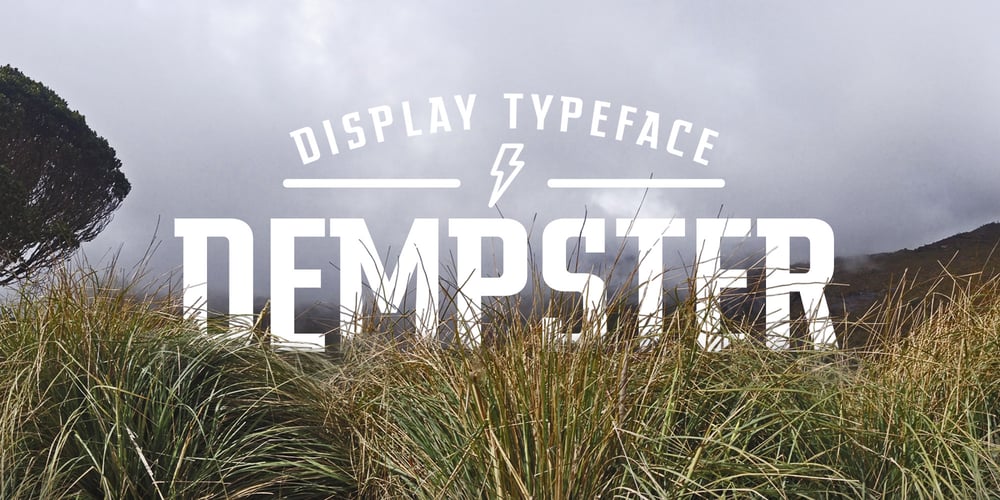
Dempster Font Family was designed by Steve Matteson, Jim Ford and published by Ascender. Dempster contains 1 styles and family package options. Dempster is a geometric sans serif design by Jim Ford. It is tall, bold and square with interesting details such as the angled terminals on the lowercase letters and friendly-looking punctuation. This typeface could feel at home with Art Deco and Modernism themes, as well as Sci-Fi and high-tech flavored graphics. Medium to large headline sizes work best when using Dempster. Dempster features include Extended Latin, Greek and Cyrillic support.